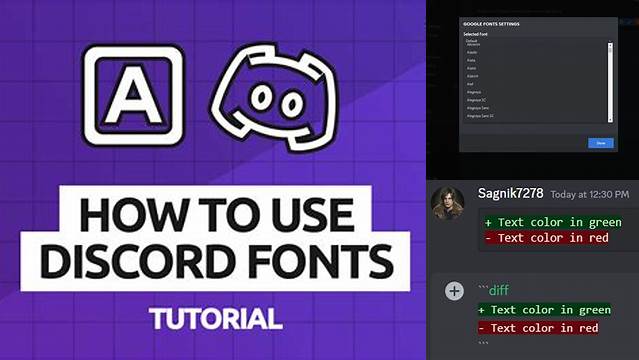
Discord Fonts: How To Use Cool Text Styles & Generators
Hey guys! Ever wanted to spice up your Discord messages with some cool fonts? You're in the right place! Discord, while awesome for community building and chatting, doesn't exactly scream customization when it comes to text styling. But don't worry, there are some neat tricks and tools you can use to make your messages stand out. This guide will walk you through everything you need to know about using different fonts on Discord, from the basics of Markdown to advanced methods using online generators. Let’s dive in and make your Discord text pop!
1. Understanding Discord Text Formatting
Before we jump into using specific fonts, let's get a handle on how Discord handles text formatting in general. Discord primarily uses Markdown, a simple markup language that allows you to format text using special characters. Think of it as a lightweight coding language for text! This is the key to creating bold, italic, and other text styles directly within Discord. Understanding Markdown is the first step to unlocking more creative text options on the platform. It’s the foundation upon which we'll build our fancy font skills, so pay close attention, guys! Mastering these basics will not only let you format text but also appreciate how third-party tools enhance these capabilities, giving your messages that extra flair. Trust me, once you get the hang of it, you'll be formatting like a pro in no time.
2. Basic Markdown for Font Styling in Discord
Alright, let’s talk Markdown! This is the bread and butter of Discord text formatting. You can easily make your text bold, italic, or even use a strike-through effect. To make text bold, just wrap it in double asterisks (). For italic, use single asterisks (). Want to get fancy? Combine them! Three asterisks () will give you bold italics. And if you want to strike through some text, use double tildes (~~) like this: strike-through. These simple tricks can add a lot of emphasis and style to your messages. Think about how you can use bold to highlight important points or italic to add a touch of sarcasm or emphasis. You can even use the strike-through effect for humorous or dramatic flair! So, play around with these Markdown basics, and you’ll be amazed at how much more expressive your messages can be.
3. Bold Text on Discord: The Double Asterisk Trick
Let's zoom in on making text bold on Discord. This is probably the most commonly used formatting trick, and it's super simple. All you need to do is surround your text with double asterisks (**). For example, typing Hello Discord! will display as Hello Discord!. Using bold text is perfect for emphasizing important words, headings, or even making a statement. It's a great way to draw attention to your message and make sure your point gets across. Consider using bold to highlight key instructions in a channel, emphasize deadlines, or just to add some punch to your announcements. Mastering bold formatting is a small step that makes a big difference in how your messages are perceived. Plus, it's one of the easiest ways to make your text look more professional and stand out in a busy chat.
4. Italic Text on Discord: Adding Emphasis with Single Asterisks
Next up, let’s talk about italics! Using italic text in Discord is another easy way to add emphasis, show sarcasm, or just make your text look a little different. To make text italic, simply wrap it in single asterisks (*). For example, This is italic text will show up as This is italic text. Italic is perfect for those moments when you want to add a subtle touch of style to your messages. You might use it for quoting someone, adding a little sarcasm, or emphasizing a word in a softer way than bold does. Think about using italic for movie titles, book names, or even to indicate a character’s internal thoughts in a role-playing scenario. It's all about adding nuance to your writing, guys! So, don't underestimate the power of the single asterisk. It can make your messages much more engaging and expressive.
5. Bold and Italic Text: Combining Styles for Impact
Now for the fun part: combining bold and italic! This is where you can really start to add some serious oomph to your messages. To get bold italics, just wrap your text in three asterisks (***). For example, This is both bold and italic will appear as This is both bold and italic. Using both styles together is a powerful way to make your text stand out. It's perfect for highlighting really important information, adding dramatic emphasis, or just making a particularly strong statement. Imagine you’re announcing a major event or sharing some exciting news – using bold italics can really make your message pop. However, a word of caution: don't overdo it! Too much bold italics can become overwhelming and lose its impact. Use it strategically for the moments when you really want to grab someone's attention. When used effectively, this combination is a game-changer for your Discord text game.
6. Strikethrough Text: The Double Tilde Effect on Discord
Ready to add a bit of playful deletion to your messages? The strikethrough effect is perfect for that! To create strikethrough text on Discord, simply wrap your text in double tildes (~~). For instance, typing This is strikethrough text will display as This is strikethrough text. Strikethrough can be used in so many fun and creative ways. It’s great for humor, like correcting yourself or adding a sarcastic tone. You might use it to show that you’ve changed your mind about something, or even to create a sense of suspense before revealing the real answer. Think about using strikethrough in collaborative brainstorming sessions to show ideas that have been considered but rejected, or in gaming channels to indicate a player who has been eliminated. The double tilde is a simple way to add a layer of playfulness and irony to your Discord messages. So, give it a try and see how it can add a bit of fun to your conversations!
7. Monospace Font: Using Backticks for Code-Like Text
Ever wanted your text to look like it's straight out of a coding terminal? Discord has you covered with the monospace font! To use monospace, you wrap your text in single backticks (). For example,
This is monospace textwill appear as
This is monospace text`. Monospace font is fantastic for sharing code snippets, command-line instructions, or anything else where you want a fixed-width font. It can also be used creatively for a different aesthetic in your regular messages. Imagine you're helping someone troubleshoot a technical issue – using monospace to format the code or commands makes it much easier to read and copy. Or maybe you just want to add a retro, computer-style vibe to your message. Monospace is a great way to break up the monotony of regular text and add a bit of visual interest. So, get those backticks working and start coding… or at least pretending to!
8. Block Quotes: Creating Visual Breaks in Discord Chat
Let's talk about block quotes! These are a great way to set off longer sections of text, like quotes, stories, or even just extended thoughts. In Discord, you can create a block quote by starting a line with a single greater-than sign (>). For example, > This is a block quote
will display as a quoted section. If you want to create a multi-line block quote, use three greater-than signs (>>>). Block quotes are super useful for making your messages more readable and organized. They help to break up long walls of text and draw attention to specific sections. Think about using block quotes for sharing excerpts from articles, posting stories in a role-playing channel, or even just highlighting a particularly insightful comment in a discussion. Block quotes give your messages a clean, structured look and help your readers focus on the most important parts. So, embrace the greater-than sign and start quoting like a pro!
9. Code Blocks: Sharing Code Snippets with Style
For those of you who are into coding or need to share code snippets, Discord has a fantastic feature called code blocks. These blocks not only format your code in a fixed-width font but also allow you to highlight specific programming languages. To create a single-line code block, use single backticks (`). For multi-line code blocks, use three backticks (). If you want to add syntax highlighting, just specify the language after the three backticks, like
python for Python code. Code blocks are essential for making your code readable and preventing formatting errors when you share it. They're a must-have for any programming-related Discord server. Imagine you’re helping someone debug their code – using a code block with syntax highlighting makes it so much easier to understand and identify issues. Or maybe you're sharing a cool new script with your friends. Code blocks keep your code looking clean and professional. So, if you’re a coder, make sure you’re taking advantage of this powerful feature!
10. Spoiler Tags: Hiding Text and Images on Discord
Want to share something without spoiling it for others? Discord’s spoiler tags are your best friend! To hide text as a spoiler, just wrap it in double vertical bars (||). For example, ||This is a spoiler|| will be hidden until someone clicks on it to reveal it. Spoiler tags are perfect for discussing plot twists, game endings, or anything else that someone might not want to see until they’re ready. They’re also great for adding a bit of mystery or surprise to your messages. Imagine you’re in a gaming channel and you want to share a screenshot from a new level – use a spoiler tag to avoid ruining the experience for others. Or maybe you’re discussing a movie and you want to talk about a major plot point without giving it away. Spoiler tags are a simple yet effective way to be considerate of others and keep the surprises intact. So, use those double vertical bars and become a spoiler-tagging pro!
11. Custom Fonts: Using External Tools for Unique Styles
Okay, so Discord's built-in Markdown is cool, but what if you want to use really unique fonts? That's where external font generators come in! There are tons of websites and apps that let you type text in a variety of fancy fonts, which you can then copy and paste into Discord. These tools work by generating text using special Unicode characters that mimic the look of different fonts. It’s kind of like a clever workaround since Discord doesn’t natively support custom fonts. Using these tools opens up a whole new world of possibilities for your text styling. You can find fonts that look handwritten, futuristic, gothic, and everything in between. However, it’s worth noting that these fonts might not display correctly on all devices, as they rely on Unicode characters. Still, for adding a unique flair to your messages, font generators are a fantastic option. So, let’s explore some of these tools and see what cool styles we can create!
12. Online Font Generators: A Step-by-Step Guide
Let's dive into how to use online font generators to create those eye-catching styles on Discord! The process is pretty straightforward. First, you’ll need to find a font generator website – there are plenty out there, like LingoJam, Cool Font, and many others. Once you’re on the site, you’ll usually see a text box where you can type your message. As you type, the generator will display your text in various font styles below. Scroll through the options and find the font you like best. Once you’ve found your perfect font, simply copy the generated text. Then, head over to Discord and paste the text into your message box. Hit send, and voila! Your message will appear in your chosen font. Remember that these fonts are actually Unicode characters, so they might not display the same way on all devices. But for the most part, they work great and can add a ton of personality to your messages. So, go ahead and experiment with different fonts and generators to find your favorites!
13. Popular Font Generator Websites for Discord
Speaking of font generator websites, let's highlight some popular choices that you can try out. One favorite is LingoJam, which offers a simple interface and a wide range of fonts. Another great option is Cool Font, known for its stylish and unique font options. You might also want to check out Font Generator Online and Fancy Text Generator, which have even more variations to choose from. Each of these sites works in a similar way: you type your text, and the site generates it in different fonts that you can copy and paste. Some sites even let you customize the fonts further, like adding symbols or decorations. It’s worth trying out a few different generators to see which ones you like best. They all have slightly different font selections and interfaces, so you might find one that perfectly suits your style. Plus, exploring these sites is a fun way to discover new and interesting ways to express yourself on Discord. So, go ahead and bookmark a few of these sites and get ready to level up your font game!
14. Using Fancy Text Generators: A Pro Tip
Okay, here’s a pro tip for using fancy text generators: don’t overdo it! While it's tempting to use a super elaborate font for every message, moderation is key. Using too many fancy fonts can actually make your messages harder to read and can even be a bit distracting. Instead, try using these special fonts sparingly, to highlight key points, add emphasis, or create a specific mood. Think of them like the spice in a dish – a little can add a lot of flavor, but too much can ruin the whole thing. Also, consider the context of your message and the channel you’re in. A super fancy font might be perfect for a creative writing channel, but it might look out of place in a technical support channel. Ultimately, the goal is to make your messages more engaging and expressive, not to make them unreadable. So, use your fancy fonts wisely and you’ll be a Discord font master in no time!
15. Font Styles and Readability: Balancing Aesthetics
Let's talk about an important aspect of using different fonts: readability! While those fancy fonts can look really cool, it’s crucial to make sure your messages are still easy to read. Some fonts, especially the more elaborate ones, can be hard to decipher, particularly on smaller screens or for people with visual impairments. Always consider your audience and the purpose of your message. If you’re sharing important information or instructions, prioritize clarity over aesthetics. Stick to simpler, more legible fonts for the main body of your message, and use the fancier ones sparingly for headings or emphasis. Also, keep in mind that some fonts might not display correctly on all devices or platforms. So, if you’re using a particularly unusual font, it’s a good idea to double-check how it looks on different devices to ensure everyone can read it. Balancing aesthetics and readability is the key to using custom fonts effectively. You want to make your messages stand out, but not at the expense of clarity!
16. Accessibility Considerations for Custom Fonts
While we're on the topic of readability, let's talk about accessibility. It’s super important to consider how your font choices might affect people with visual impairments or other disabilities. Some fancy fonts can be very difficult to read for people with dyslexia or low vision. To ensure your messages are accessible to everyone, it’s best to use custom fonts sparingly and to always provide a clear and simple alternative when needed. For example, if you’re using a fancy font for a heading, make sure the main text is in a standard, easy-to-read font. You might also consider adding a description of the font you’re using, so people can get an idea of the style even if they can’t see it clearly. Remember, Discord is all about community, and that means making sure everyone can participate fully. By being mindful of accessibility when you choose your fonts, you’re helping to create a more inclusive and welcoming environment for everyone. So, let’s make our Discord communities as accessible as possible!
17. Testing Fonts: Ensuring Compatibility Across Devices
Before you go all-in on a particular custom font, it's a good idea to test it out and make sure it displays correctly across different devices and platforms. Since these fonts are actually Unicode characters, they might not render the same way everywhere. What looks great on your computer might look like a jumbled mess on someone else's phone. To test your font, send a message to yourself or ask a friend to check it out on their device. See how it looks on both desktop and mobile, and on different operating systems (like Windows, macOS, Android, and iOS). If you notice any issues, you might want to choose a different font or adjust your message accordingly. Testing your fonts is a simple step that can save you from potential embarrassment and ensure that your messages are always clear and readable. So, take a few minutes to test your fonts, and you’ll be sure to make a great impression every time.
18. Discord Text Formatting Shortcuts: Quick Tips
Alright, let’s talk shortcuts! Discord has some handy text formatting shortcuts that can save you time and effort. Instead of typing out the Markdown symbols every time, you can use keyboard shortcuts to quickly format your text. For example, on Windows, you can select your text and press Ctrl+B to make it bold, Ctrl+I for italic, and Ctrl+Shift+X for strikethrough. On macOS, the shortcuts are Cmd+B, Cmd+I, and Cmd+Shift+X. These shortcuts work in most text editors and messaging apps, so they’re great to have in your arsenal. Mastering these shortcuts can significantly speed up your typing and make it much easier to format your messages on the fly. Imagine you’re in a fast-paced conversation and you need to quickly emphasize a point – these shortcuts are a lifesaver! So, take a few minutes to learn these shortcuts, and you’ll be a Discord formatting ninja in no time!
19. Discord Font Size: Adjusting Text Size Settings
While Discord doesn’t let you change the font itself, you can adjust the font size! This is super useful for making the text easier to read, especially if you’re on a small screen or have visual impairments. To change the font size, go to your Discord settings by clicking the gear icon next to your username. Then, navigate to the “Accessibility” tab. Here, you’ll find a slider that lets you adjust the text size from 12px to 24px. You can also adjust the chat font scaling, which affects the size of messages in channels and DMs. Playing with these settings can make a big difference in your Discord experience. You can find the perfect size that’s comfortable for your eyes and makes it easy to read long messages or conversations. So, if you’re finding the default text size too small or too large, don’t hesitate to adjust it to your liking. It’s a simple change that can make a big difference!
20. Discord Themes: How to Change the Look of Your Chat
Okay, let’s talk themes! While you can't change the actual fonts used by Discord, you can customize the overall look and feel of the app by changing the theme. Discord offers two main themes: Light and Dark. You can switch between them in your user settings, under the “Appearance” tab. Dark theme is great for reducing eye strain, especially in low-light environments, while Light theme offers a brighter, more traditional look. But that’s not all! You can also use third-party themes and plugins to completely overhaul the appearance of Discord. Tools like BetterDiscord and Powercord let you install custom themes that change everything from the colors and backgrounds to the fonts and icons. These tools open up a whole new world of customization options, allowing you to create a Discord interface that truly reflects your personal style. However, keep in mind that using third-party tools can sometimes violate Discord’s terms of service, so use them at your own risk. Still, for those who love to customize, these tools offer a fantastic way to make Discord your own.
21. Third-Party Tools: Enhancing Discord’s Text Capabilities
Speaking of third-party tools, let's dive deeper into how they can enhance Discord's text capabilities. While Discord's built-in Markdown is great, there are some things it just can't do, like adding custom emojis or creating complex text layouts. That's where tools like BetterDiscord and Powercord come in. These tools are essentially plugins that extend Discord's functionality, allowing you to add new features, customize the interface, and even write your own scripts. With these tools, you can install plugins that add new text formatting options, like custom fonts, animated text, and even text-to-speech functionality. You can also find plugins that let you create custom emojis and use them in your messages. However, as we mentioned before, it's important to be aware that using third-party tools can sometimes be against Discord’s terms of service. Discord doesn't officially support these tools, and using them could potentially lead to account suspension. So, if you choose to use them, do so with caution and be sure to read the terms of service carefully. Still, for those who are willing to take the risk, these tools can unlock a whole new level of customization on Discord.
22. BetterDiscord: A Popular Customization Platform
If you’re interested in diving into the world of Discord customization, BetterDiscord is one platform you’ll definitely want to check out. BetterDiscord is a popular client modification that allows you to add custom themes, plugins, and emotes to your Discord client. It’s like giving Discord a superpower-up, allowing you to tweak almost every aspect of the interface and functionality. With BetterDiscord, you can install themes that completely change the look of Discord, from the colors and backgrounds to the fonts and icons. You can also install plugins that add new features, like custom CSS, enhanced text formatting, and even custom commands. One of the most popular features of BetterDiscord is its plugin library, which is filled with tons of community-created plugins that can do just about anything you can imagine. However, it’s important to remember that BetterDiscord is a third-party tool, and using it does come with some risks. Discord doesn’t officially support BetterDiscord, and using it could potentially violate their terms of service. So, if you decide to use BetterDiscord, be sure to do your research and understand the risks involved. But for those who are willing to take the plunge, BetterDiscord can be a game-changer for Discord customization.
23. Powercord: Another Powerful Discord Mod
Powercord is another strong contender in the Discord modification arena, offering a similar set of features to BetterDiscord. This platform allows you to enhance your Discord experience with custom themes, plugins, and more, opening up a world of customization possibilities. Like BetterDiscord, Powercord allows you to install themes that completely transform the look and feel of your Discord client. You can find themes that offer sleek, modern designs, retro vibes, or anything in between. Powercord also boasts a robust plugin system, allowing you to add new features and functionalities to Discord. From enhanced text formatting and custom commands to advanced notification settings and more, the possibilities are vast. The Powercord community is also quite active, meaning you'll find a plethora of plugins and themes created by other users to further personalize your experience. As with any third-party modification, it's crucial to exercise caution when using Powercord. Discord does not officially endorse these types of modifications, and there's always a potential risk of violating their terms of service. It's always wise to do your research and weigh the risks before diving in. However, for those seeking a more personalized Discord experience, Powercord offers a powerful set of tools to explore.
24. Risks of Using Third-Party Discord Mods
It's crucial to address the potential risks associated with using third-party Discord modifications like BetterDiscord or Powercord. While these tools offer exciting customization possibilities, it's important to be aware of the potential downsides. The biggest risk is the possibility of violating Discord's terms of service. Discord does not officially support these modifications, and using them could potentially lead to account suspension or even permanent ban. Additionally, third-party mods can introduce security vulnerabilities. Since these tools are not vetted by Discord, there's a risk of downloading malicious software or plugins that could compromise your account or device. It's also important to consider the stability of these mods. They are often developed by independent developers, and updates or changes to Discord's platform could break them, leading to unexpected issues or crashes. Finally, using third-party mods can sometimes impact Discord's performance, making the app slower or less responsive. So, while the allure of custom themes and plugins is strong, it's essential to weigh the risks carefully before diving in. Always do your research, download mods from trusted sources, and be prepared for potential issues. Your account security and Discord experience are worth protecting!
25. Discord Mobile: Font Options on Your Phone
Let's shift our focus to Discord on mobile! Using custom fonts and text formatting on your phone is just as important as on your desktop. The good news is that all the Markdown tricks we discussed earlier, like bold, italic, and strikethrough, work perfectly on the Discord mobile app. You can use the same asterisks, tildes, and backticks to format your text on the go. When it comes to custom fonts, the process is similar to the desktop version. You'll need to use a font generator website or app to create your fancy text, then copy and paste it into your Discord messages. Keep in mind that the display of these fonts might vary slightly on different mobile devices, so it's always a good idea to test them out. Unfortunately, third-party mods like BetterDiscord and Powercord are generally not available on mobile devices, so you're limited to using font generators for custom styles. However, the Markdown options and font generators still give you plenty of ways to make your messages stand out on mobile. So, don't let the small screen limit your creativity!
26. Copy and Paste Fonts on Discord Mobile
The key to using fancy fonts on Discord mobile is the good old copy-and-paste method! Since you can't directly install custom fonts on the Discord app, you'll need to rely on font generator websites or apps to create your stylish text. The process is pretty simple. First, find a font generator you like and type your message into the text box. The generator will then display your text in various font styles. Choose the font that catches your eye, and then select and copy the generated text. Now, switch over to the Discord app and paste the text into your message box. Voila! Your message will appear in the fancy font you selected. This method works for both iOS and Android devices, so you can use custom fonts no matter what phone you have. One thing to keep in mind is that some fonts might not display perfectly on all devices, so it's always a good idea to test them out. But overall, the copy-and-paste method is a reliable way to add some flair to your Discord messages on mobile. So, get creative and start experimenting with different fonts!
27. Discord Bots: Utilizing Bots for Text Formatting
Did you know that Discord bots can also help with text formatting? Some bots offer commands that allow you to format text in unique ways, adding another layer of customization to your messages. These bots might offer commands for creating stylized text blocks, generating fancy dividers, or even adding custom emojis and reactions. To use these bots, you'll typically need to invite them to your server and then learn the specific commands they offer. The commands usually involve typing a prefix (like !
) followed by the command name and any necessary arguments. For example, a bot might have a command like !fancytext Hello Discord!
that generates the text “Hello Discord!” in a fancy font. Using bots for text formatting can be a fun way to add some flair to your server and make your messages more engaging. However, it's important to choose bots carefully and make sure they're from reputable developers. As with any third-party tool, there's always a risk of security vulnerabilities or privacy issues. But if you choose wisely, Discord bots can be a valuable addition to your server and help you take your text formatting to the next level!
28. Server Rules and Font Usage: Setting Guidelines
If you run a Discord server, it’s a good idea to set some guidelines around font usage and text formatting. This helps to ensure that your server remains readable and accessible for everyone. You might want to create rules about using excessive bold text, italic text, or fancy fonts, as too much formatting can make messages difficult to read. You could also set guidelines on using spoiler tags appropriately to avoid spoiling content for others. It’s also a good idea to consider accessibility when creating these rules. Encourage members to use clear and simple fonts whenever possible and to avoid fonts that are difficult to read. You might even want to create a dedicated channel for testing fonts and formatting, so members can experiment without cluttering up the main channels. Ultimately, the goal is to create a welcoming and inclusive environment where everyone can communicate effectively. By setting clear guidelines around font usage, you can help to ensure that your server remains a positive and enjoyable place for everyone. Remember, clear communication is key to a thriving Discord community!
29. Troubleshooting Font Issues: Common Problems and Solutions
Encountering issues with fonts on Discord? Don’t worry, it happens! One common problem is that custom fonts generated by online tools might not display correctly on all devices. This is because these fonts rely on Unicode characters, which might not be supported by every operating system or browser. If you or someone else is seeing strange symbols or boxes instead of the intended font, try using a different font generator or sticking to the basic Markdown formatting options. Another issue can arise from using third-party mods like BetterDiscord or Powercord. These mods can sometimes conflict with Discord's updates, causing font issues or other glitches. If you experience problems after installing a mod, try disabling it or uninstalling it altogether. It’s also worth checking your Discord settings to make sure your text size and theme are set appropriately. Sometimes, a simple adjustment to these settings can resolve font-related issues. Finally, if you’re still having trouble, try restarting Discord or your device. A fresh start can often fix minor software glitches. So, don’t panic if you run into font problems on Discord. With a little troubleshooting, you can usually get things working smoothly again.
30. The Future of Fonts on Discord: What’s Next?
So, what does the future hold for fonts on Discord? While Discord hasn’t officially announced any plans to add native support for custom fonts, there are a few possibilities we can imagine. One potential development is the addition of more advanced Markdown options, allowing for greater control over text styling within Discord itself. We might see new Markdown symbols for things like underlines, text colors, or even font sizes. Another possibility is the integration of font packs or themes, allowing users to choose from a curated selection of fonts that are guaranteed to display correctly across all devices. Discord could also explore partnerships with font foundries to offer exclusive font options to Nitro subscribers. Of course, the third-party modding community will likely continue to push the boundaries of what’s possible with Discord customization, developing new and innovative ways to use fonts and text effects. Whatever the future holds, it’s clear that text formatting is an important part of the Discord experience, and we can expect to see continued evolution and innovation in this area. So, keep experimenting with different fonts and styles, and stay tuned for what’s next!